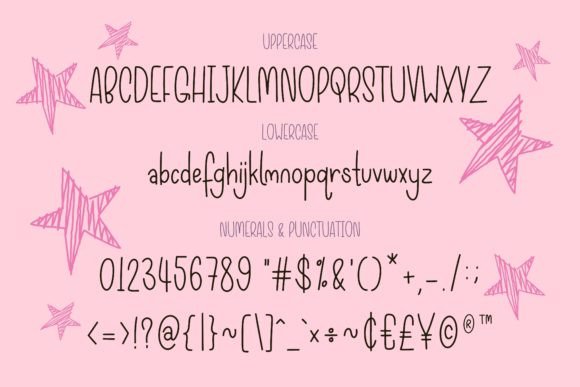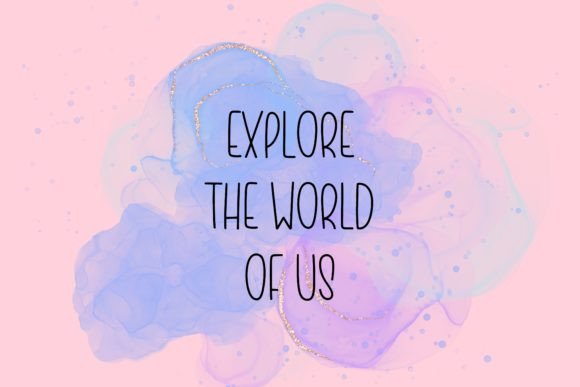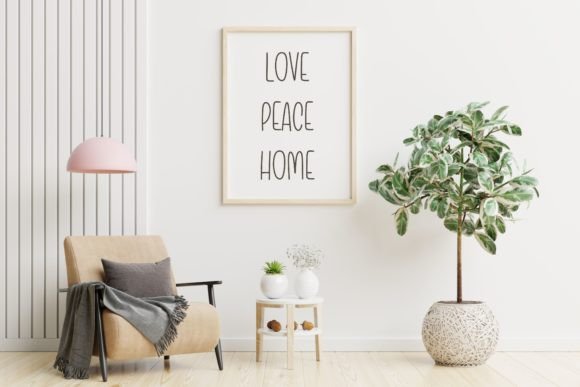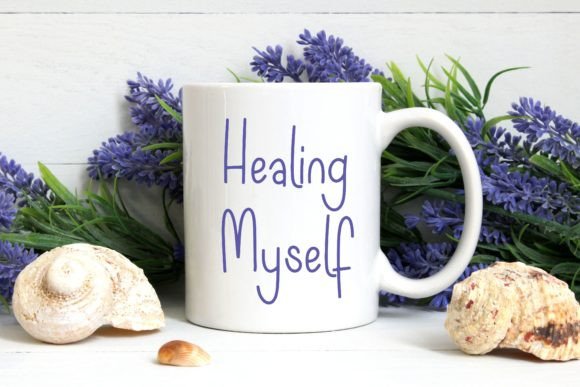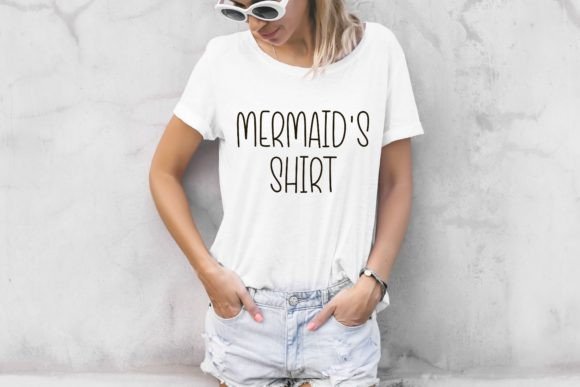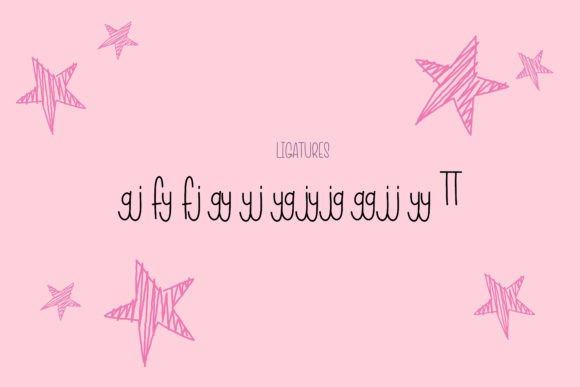
Introducing Bailey Font: The Ultimate Handwritten Farmhouse-Style Font for Creative Projects
Are you a designer, crafter, or DIY enthusiast looking for a unique and charming font to elevate your creative projects? Look no further than Bailey Font, a thin, cute, and friendly handwritten farmhouse-style font that’s perfect for creating quotes, logos, and lettering products that stand out.
What Makes Bailey Font Special?
Bailey Font is a one-of-a-kind font that’s designed to bring a touch of rustic charm and whimsy to your designs. Its thin and delicate strokes evoke a sense of simplicity and elegance, making it ideal for a wide range of creative projects, from farmhouse-style signs and quotes to logos, branding, and packaging.
Bailey Font is a versatile font that’s perfect for designers and crafters who want to add a personal touch to their projects. Whether you’re creating custom signs, wall art, or DIY crafts, this font is sure to inspire your creativity and help you stand out from the crowd.
Some of the key benefits of using Bailey Font include:
- Perfect for quotes and lettering: Bailey Font is designed specifically for creating quotes, logos, and lettering products that are both stylish and readable.
- Rustic charm and whimsy: This font’s thin and delicate strokes evoke a sense of simplicity and elegance, making it perfect for farmhouse-style designs and DIY crafts.
How to Use Bailey Font in Your Designs
- Pair it with bold colors: Bailey Font looks amazing paired with bold colors and contrasting backgrounds, making it perfect for creating eye-catching signs and wall art.
- Add some texture: Add some texture to your designs by layering Bailey Font over a background image or texture, giving your projects a more rustic and organic feel.
Bailey Font is a unique and charming handwritten farmhouse-style font that’s perfect for designers, crafters, and DIY enthusiasts who want to add a touch of rustic charm and whimsy to their creative projects. With its PUA encoding, easily accessible glyphs and swashes, and thin and delicate strokes, this font is sure to inspire your creativity and help you stand out from the crowd.